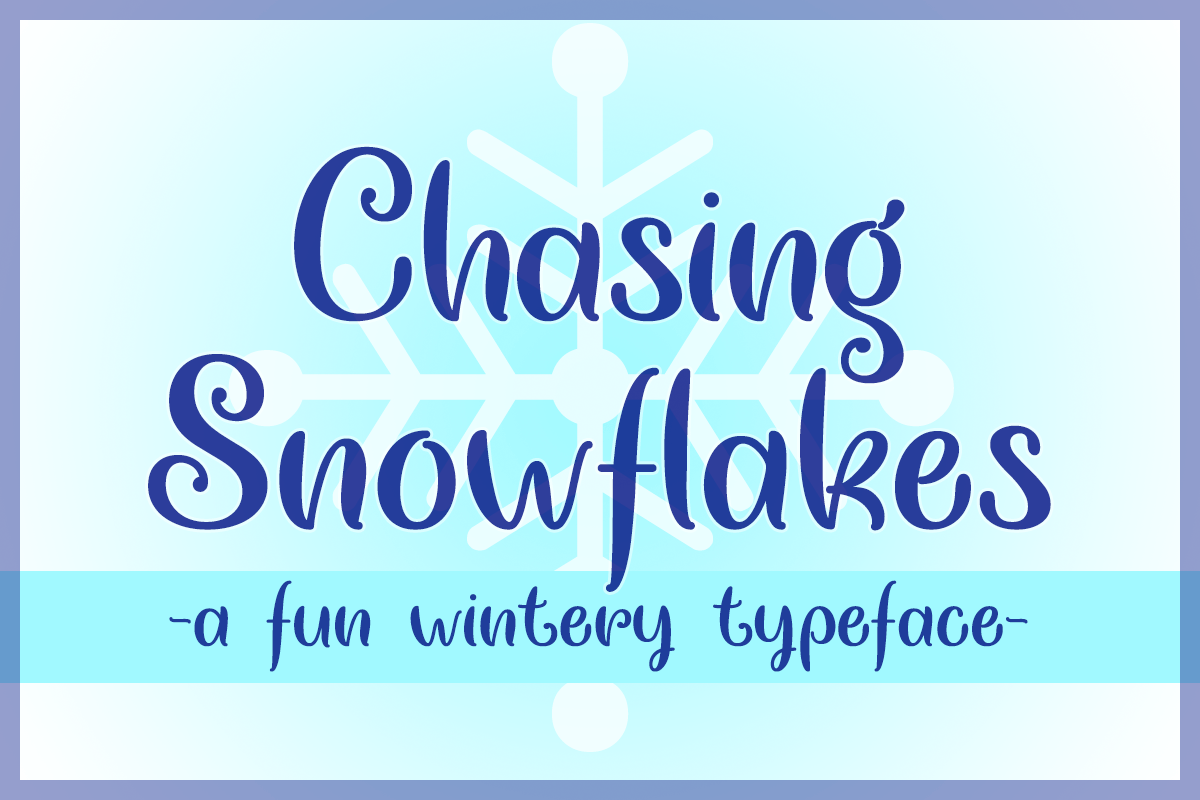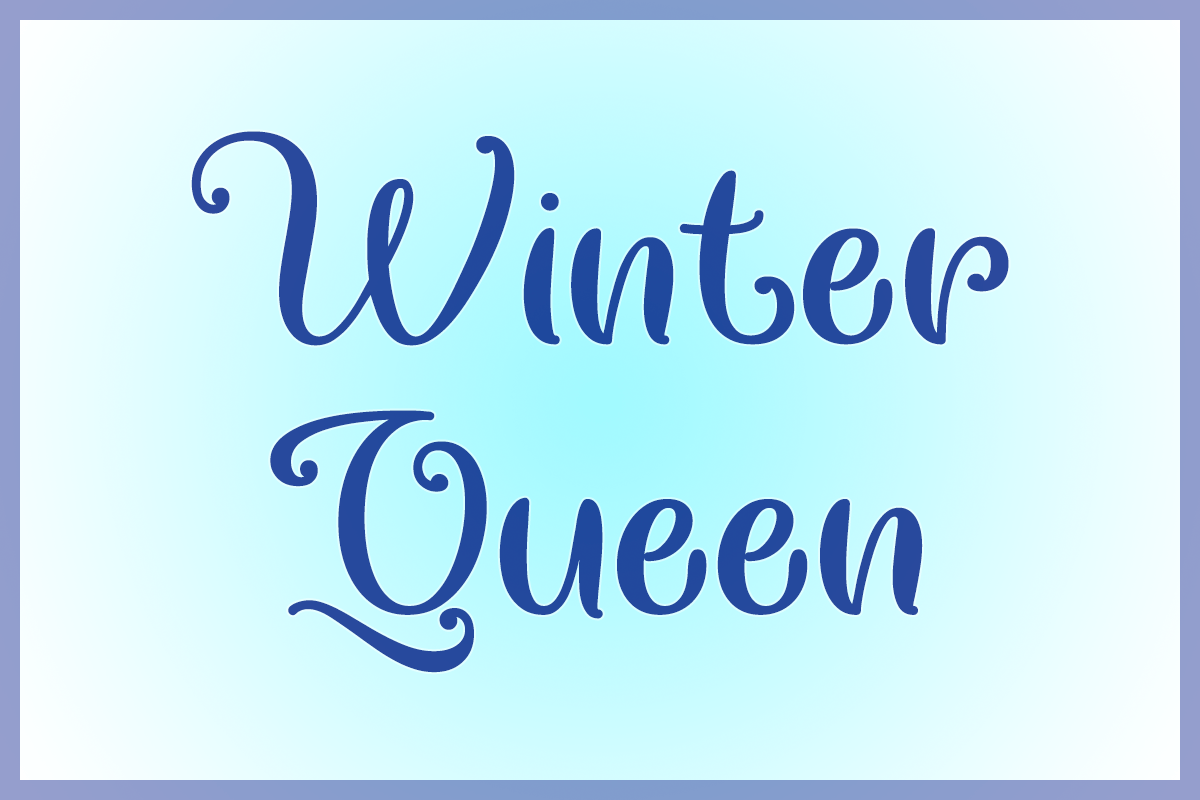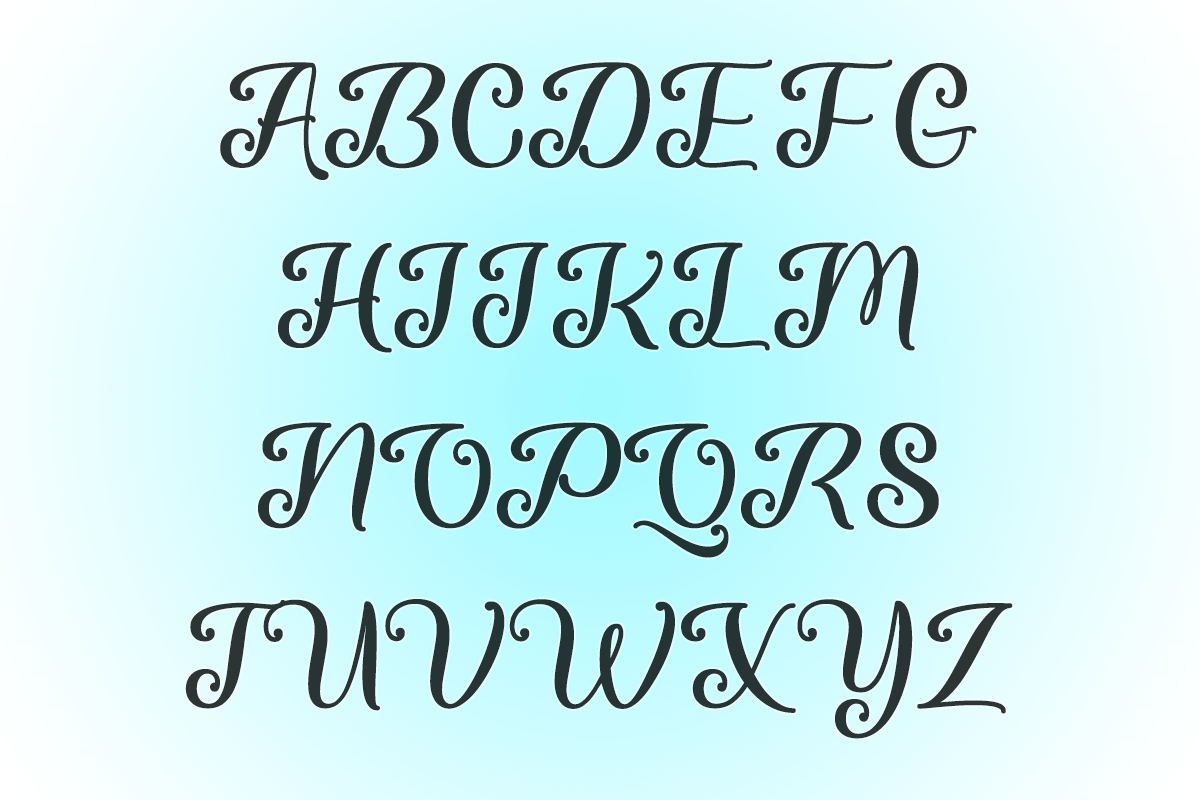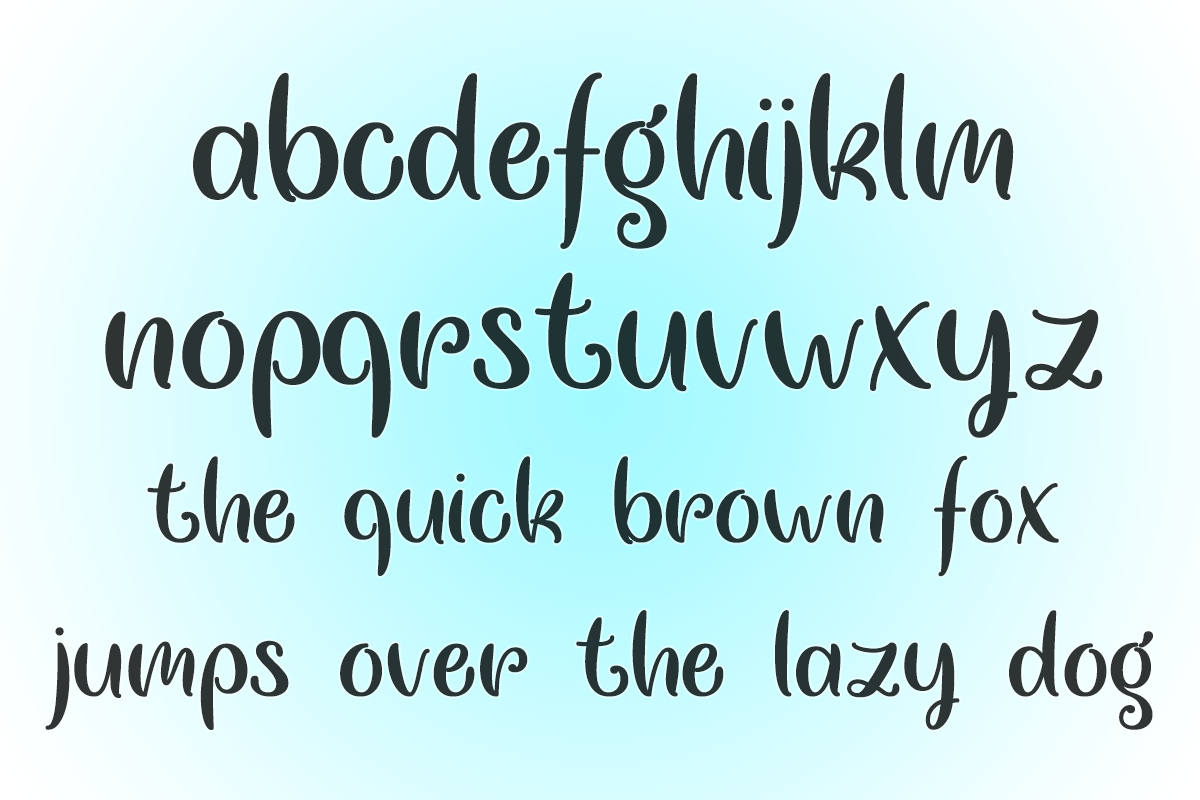
Chasing Snowflakes
Chasing Snowflakes is a fun wintery typeface that will add whimsical charm to your projects all year round!
Type * (asterisk) for the snowflake